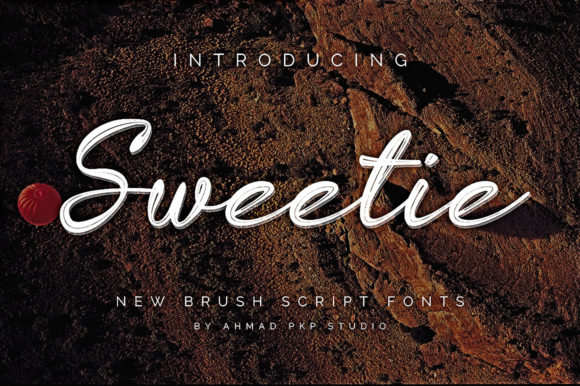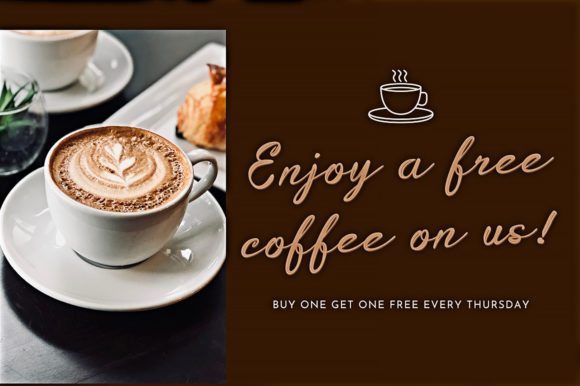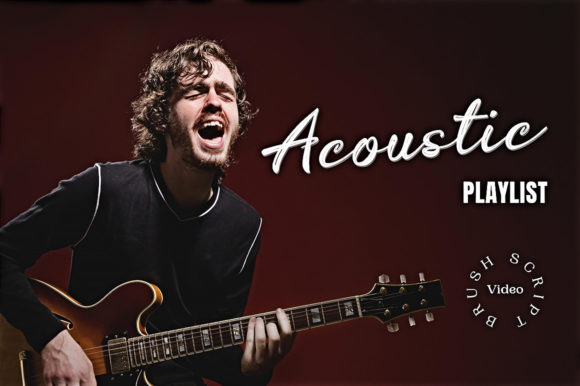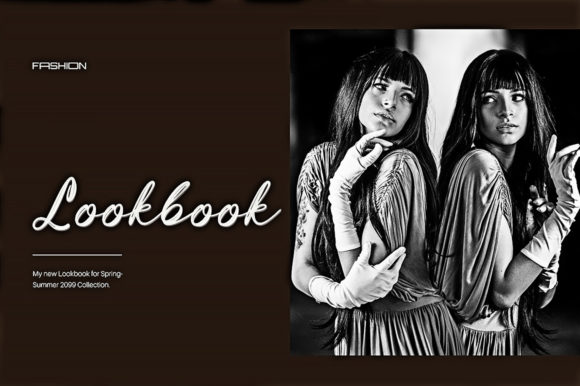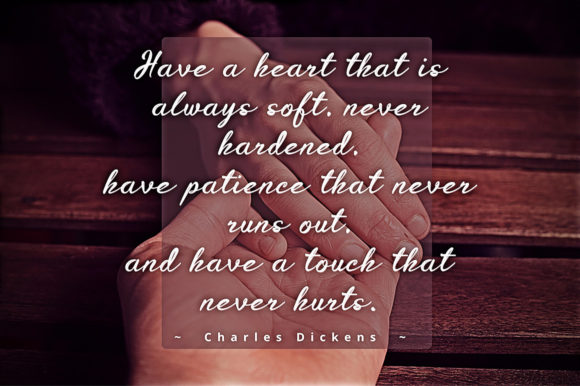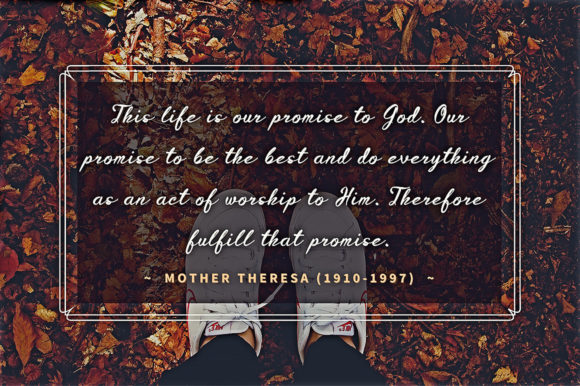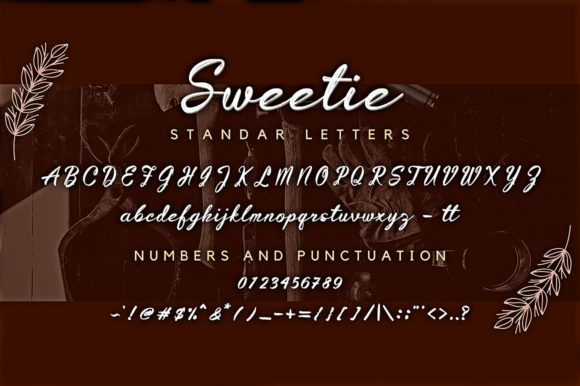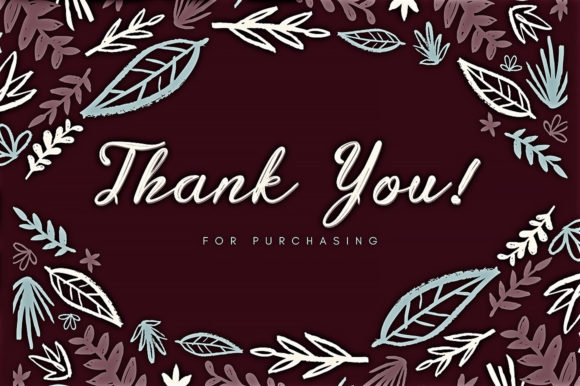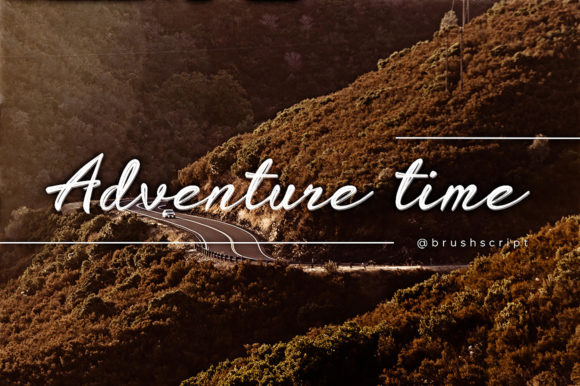
Sweetie Font
About Sweetie Font
“Sweetie” emerges as a font that embodies simplicity, uniqueness, and ease of application. With its straightforward charm, it becomes a versatile tool for a myriad of projects. Whether gracing wedding invitations, business cards, greeting cards, posters, fashion designs, social media posts, or wall art, this elegant font adds a touch of high-quality vibes to elevate your creations.
Envision “Sweetie” as a brush that effortlessly glides across the canvas, leaving behind a trail of graceful strokes that infuse your designs with a sense of refined simplicity. Its unpretentious appeal and distinctive character elevate your projects, transforming them into visual treasures that resonate with a discerning eye. As you weave this font into your creations, you’ll embark on a journey where your concepts evolve into captivating visual narratives.
Beyond its visual allure, “Sweetie” captures an essence of authenticity and creative versatility. Its easy-to-apply nature makes it a powerful addition to your design arsenal, turning your projects into more than just visuals – they become expressions of artistry and elegance.
“Sweetie” stands as a reliable companion in your design endeavors. Its adaptability ensures seamless harmony with various styles, themes, and intentions. Whether you’re crafting an elegant wedding invitation, enhancing the impact of business cards, or adding a touch of sophistication to your social media presence, this font amplifies the resonance of your message.
In a world where design communicates volumes, “Sweetie” becomes your medium for crafting designs that leave a lasting impression. Let its simple yet unique strokes be the artistic flourishes that enhance your creations, infusing them with a touch of elegance and refined aesthetics. Embrace the unassuming allure of “Sweetie” and watch as it transforms your projects into captivating showcases of creative excellence, resonating deeply with all who engage with them.